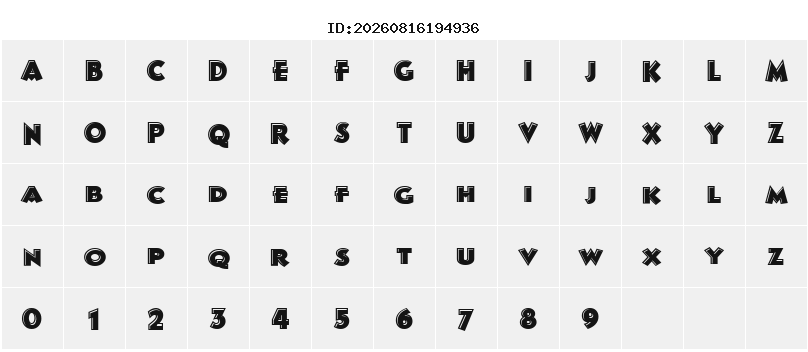
Spatz Hilite Preview
• Font Name: Spatz Hilite
• Font ID: NickCurtis: Spatz Hilite: 2000
• Full Font Name: Spatz Hilite
• PostScript Name: SpatzHilite
• Character Count: 216
About Spatz Hilite.ttf
Spatz Hilite.ttf is a modern, elegant sans-serif font designed for ultimate readability and visual harmony. Perfect for branding, headlines, web design, and print materials.